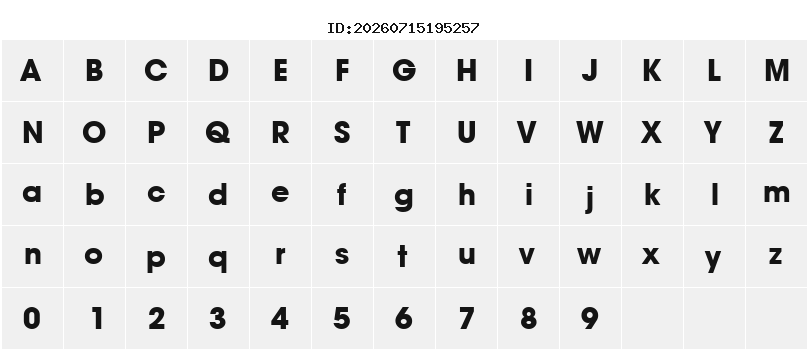
• Designer: Herb Lubalin/Tom Carnase
• Manufacturer: International Typeface Corporation
About AvantGardeMdITCTT.ttf
AvantGardeMdITCTT.ttf is a modern, elegant sans-serif font designed for ultimate readability and visual harmony. Perfect for branding, headlines, web design, and print materials.